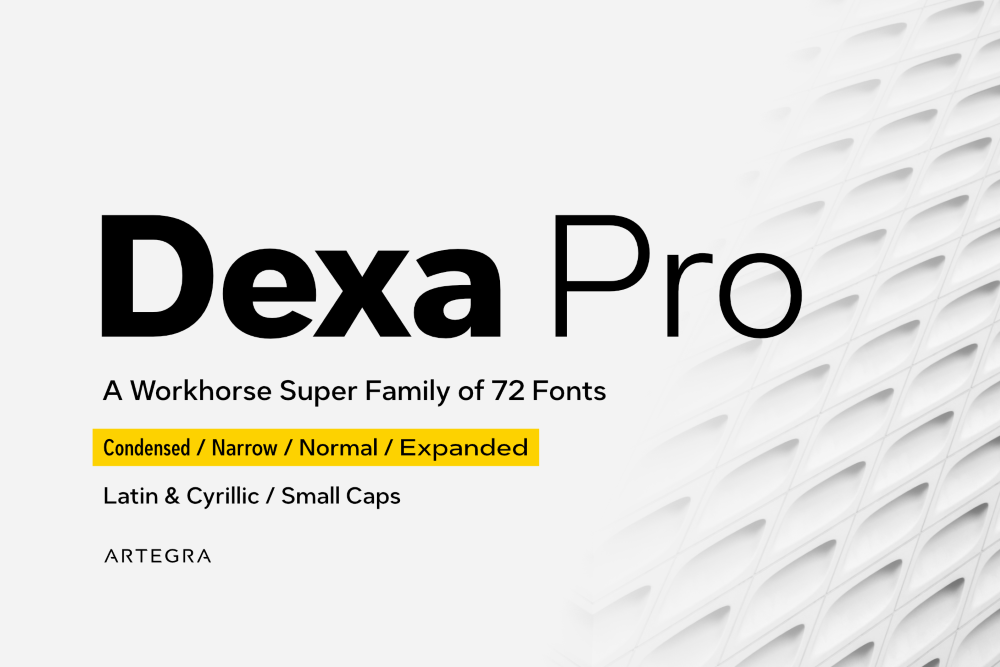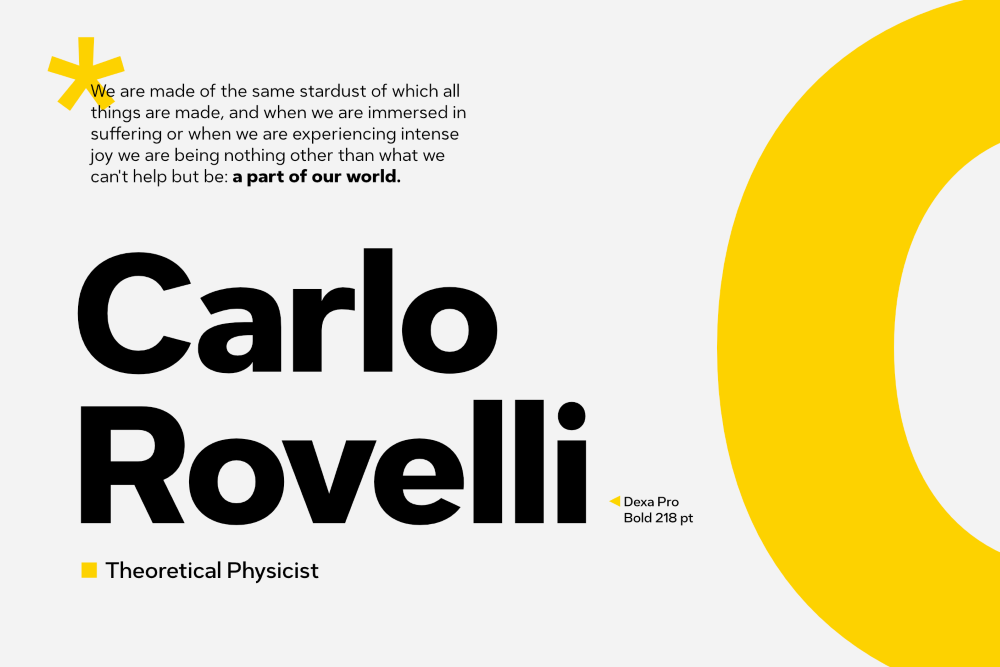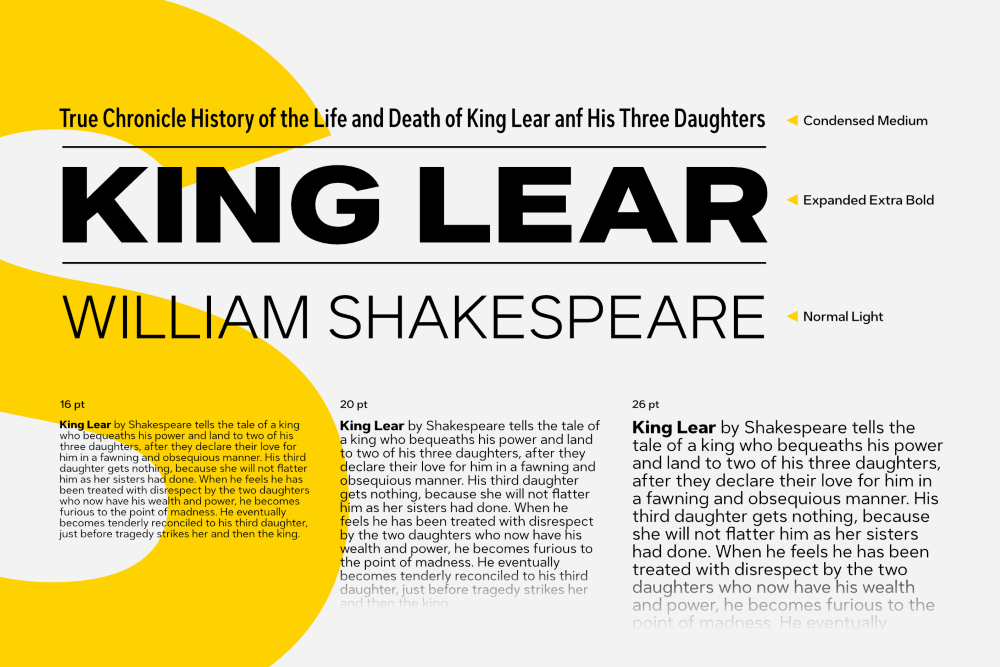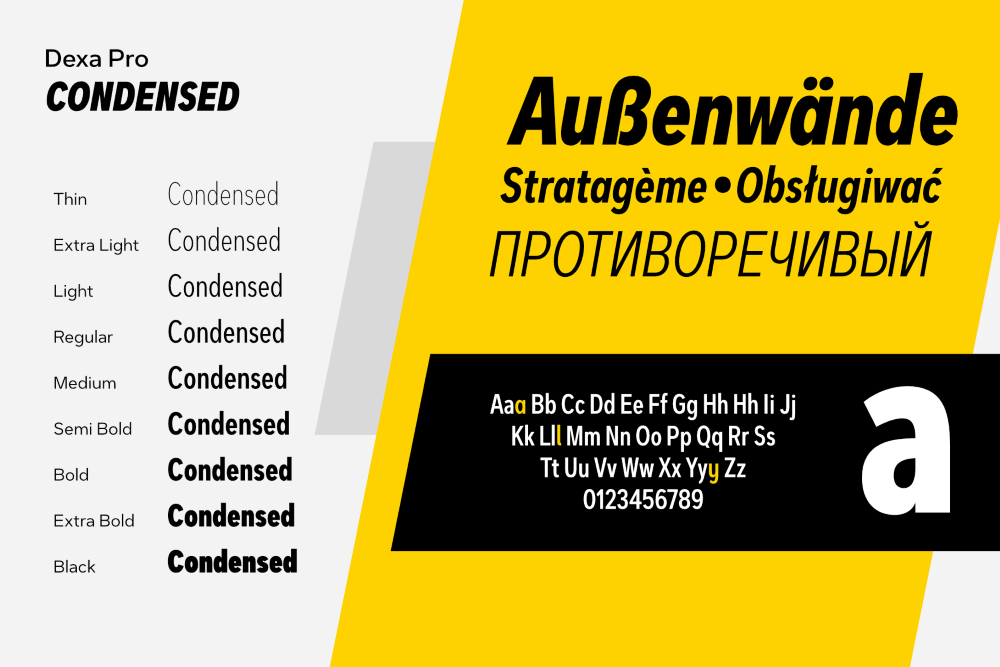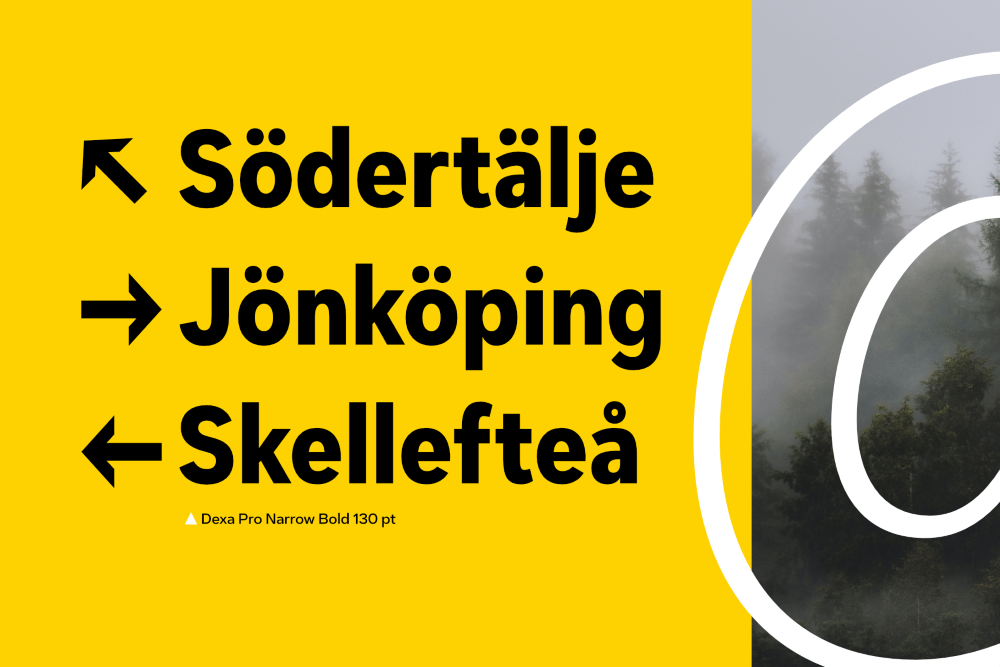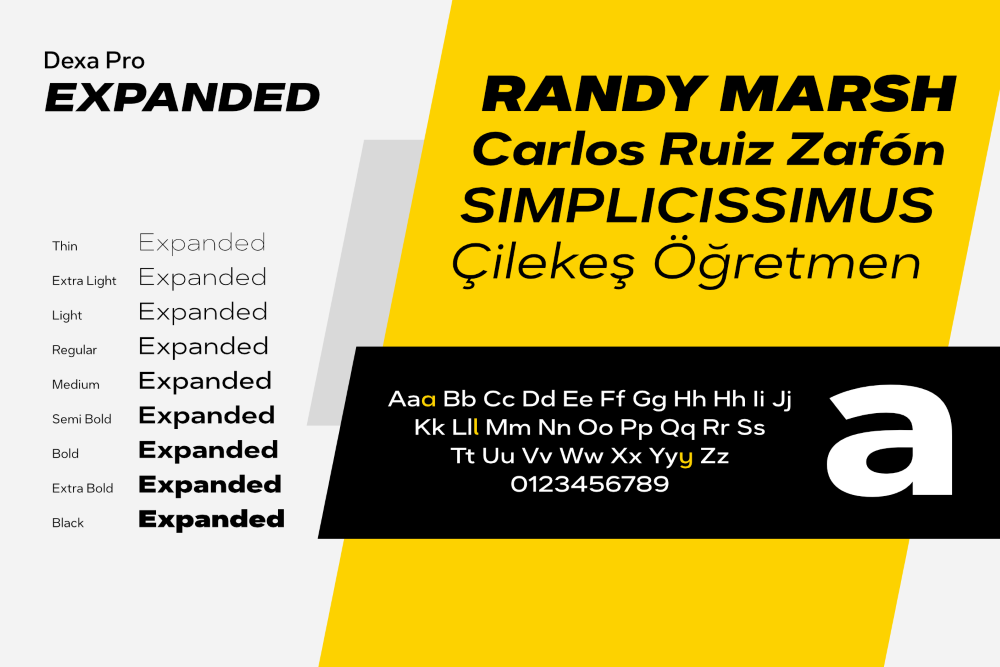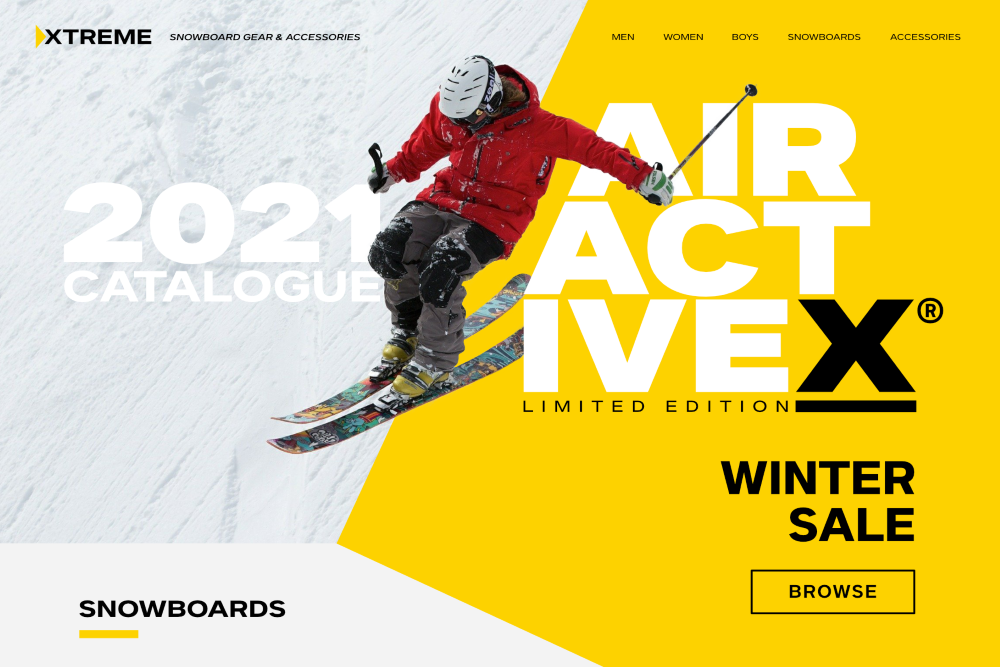
Dexa Pro Geometric Sans Serif Font Family
Dexa Pro is a contemporary fonts super family that features a classic sans-serif design.
This workhorse typeface consists of 72 fonts in total, with Condensed, Narrow, Regular & Expanded width variations and 18 weights for each one of them, ranging from Thin to Extra Block and Black weights, along with matching true italics for each one of them.
With Dexa Pro you'll be able to cover all your bases: use it on everything from long texts for body copy to display compositions!
Dexa Pro Superfamily